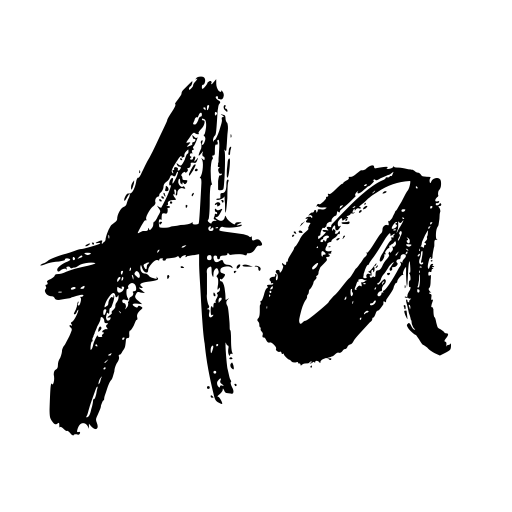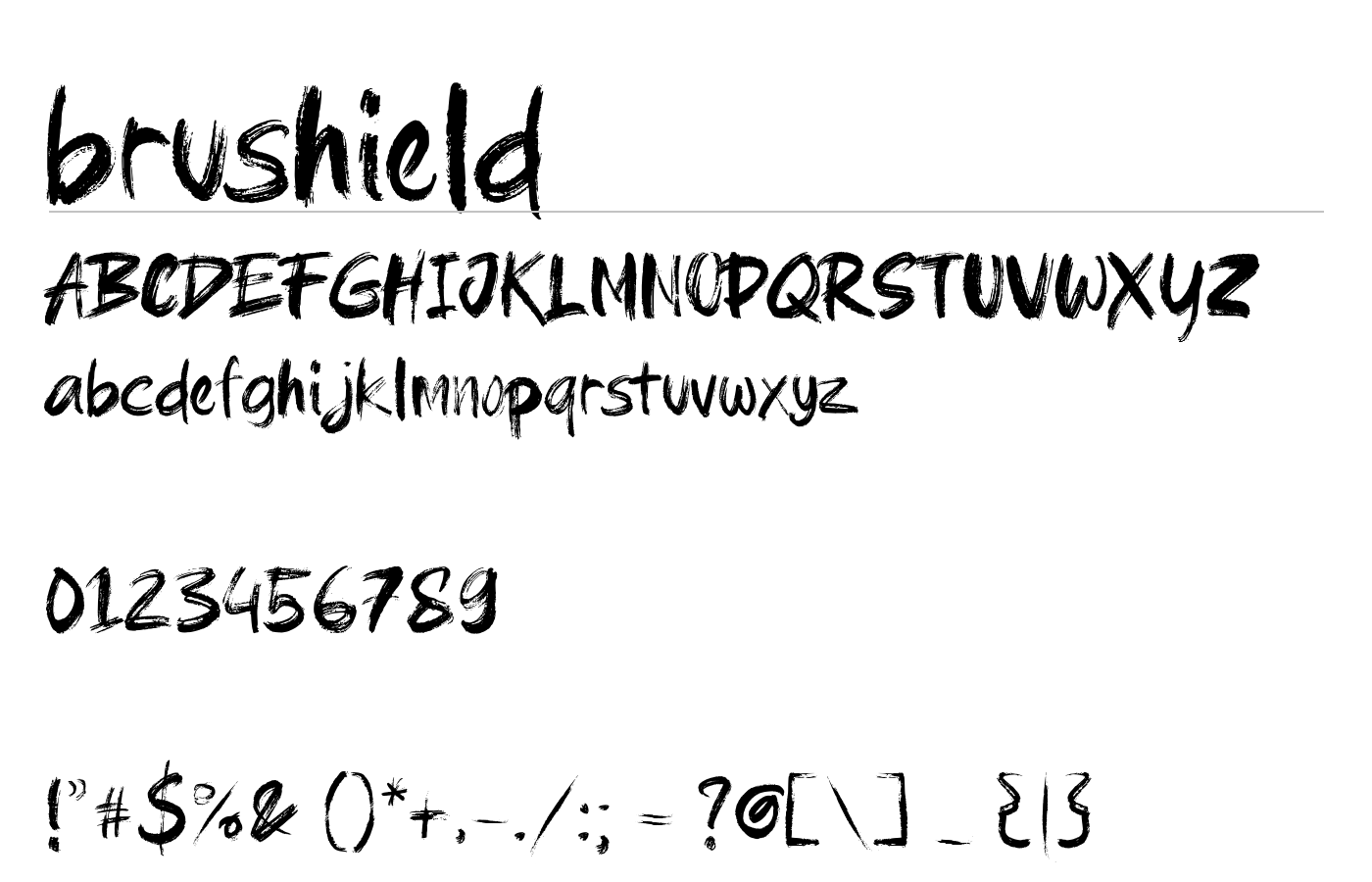
Brushield is a bold, expressive handwritten brush script with a rough, textured appearance that gives it a dynamic, artistic feel. Its irregular strokes and organic shapes create a casual, energetic vibe perfect for creative projects, branding, and headlines that want to convey personality and spontaneity. This font works well in designs needing a personal, handcrafted touch, such as posters, logos, and packaging with an edgy or informal style.
brushield Font
About brushield Font
| Designer | Degi Kurniawan |